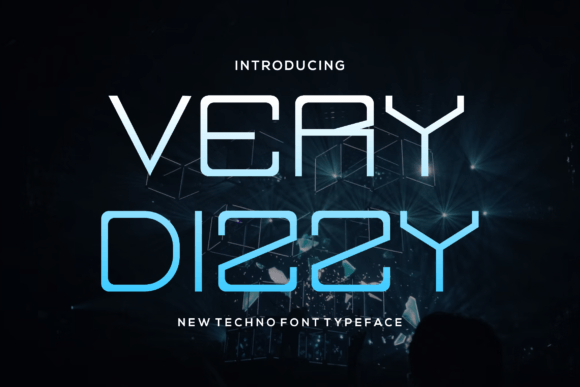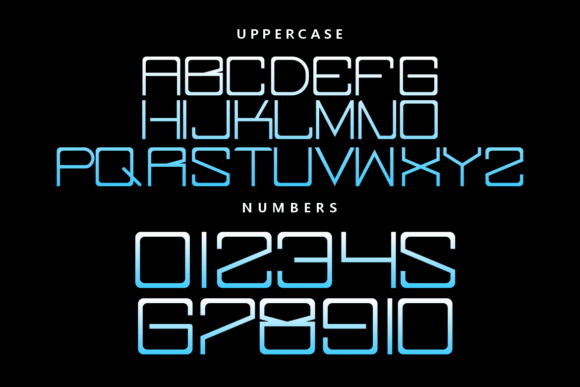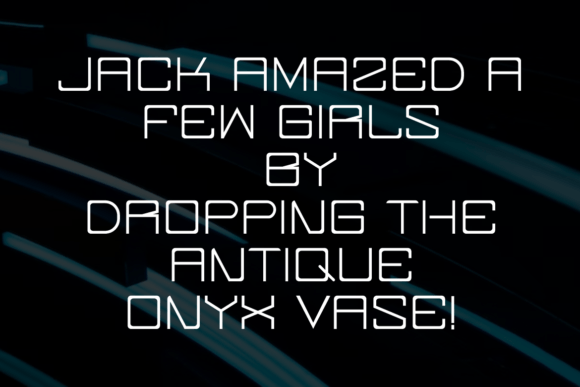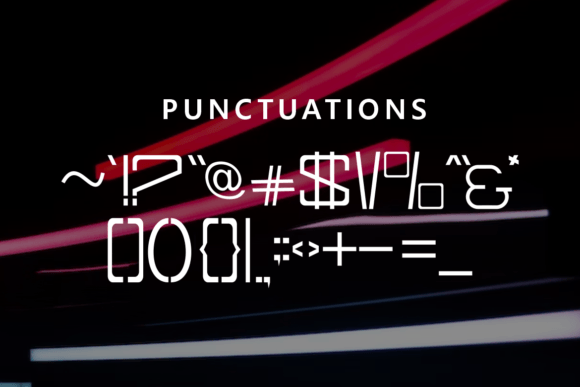
Verydizzy: A Thin and Sporty Slab Serif Font
Verydizzy is a thin slab serif font that combines sporty and modern design elements. This versatile typeface is perfect for various projects, from signatures and stationery to branding and packaging design.
Key Features of Verydizzy
- Thin Design: Offers elegant, lightweight letterforms.
- Sporty Style: Brings dynamic character to designs.
- Modern Appeal: Features contemporary design elements.
- Versatile Application: Adapts well to numerous design contexts.
Best Uses for Verydizzy
Thanks to its versatile characteristics, Verydizzy works especially well for:
- Elegant signatures
- Professional stationery
- Distinctive logos
- Wedding materials
- Typography quotes
- Magazine and book covers
- Website headers
When using Verydizzy in your designs, keep these tips in mind:
- Try it for headlines or display text to showcase its thin style.
- Use different sizes to highlight its sporty features.
- Pair with bolder fonts for contrast and hierarchy.
- Let its versatility enhance both athletic and contemporary projects.
To sum up, Verydizzy is an excellent choice for designers seeking a thin and sporty slab serif font. Its versatility makes it perfect for a wide range of projects. Whether you’re creating wedding materials, designing logos, or developing branding packages, Verydizzy offers the perfect blend of contemporary style and athletic sophistication.
Furthermore, Verydizzy’s distinctive design allows it to shine in contexts where both sportiness and modernity are key. For instance, from stationery to website headers, this font can elevate your projects with its refined style. Also, its thin yet dynamic appearance works particularly well in designs that aim to make a sophisticated impact.
In conclusion, Verydizzy truly captures the essence of modern sport in slab serif typography. Its versatility across different applications shows how well it can serve various creative needs. Therefore, for those wanting to add a touch of athletic sophistication to their work, Verydizzy can enhance any design with its unique style. Ultimately, it’s perfect for designers aiming to make a sporty, modern impact across a wide range of creative projects.